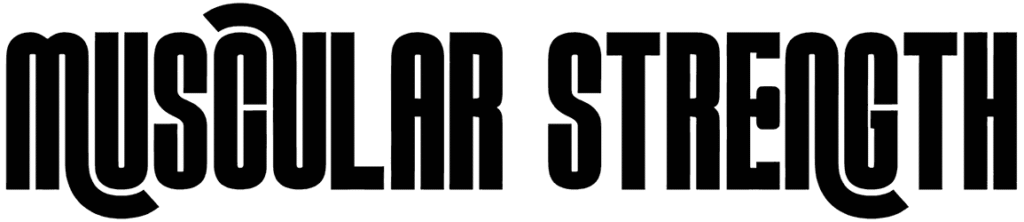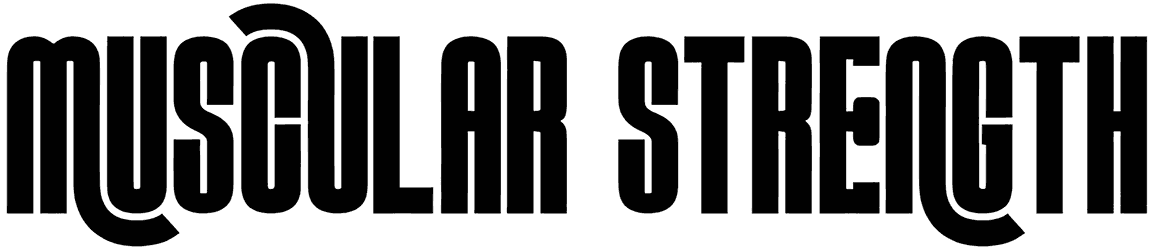
Muscular Strength Font
Muscular Strength is a fancy, groovy font that will make a big impact on any project. It has a one-of-a-kind, fashionable look that will give any undertaking an extra dose of originality and elegance, due to the powerful and self-assured way in which it presents itself.